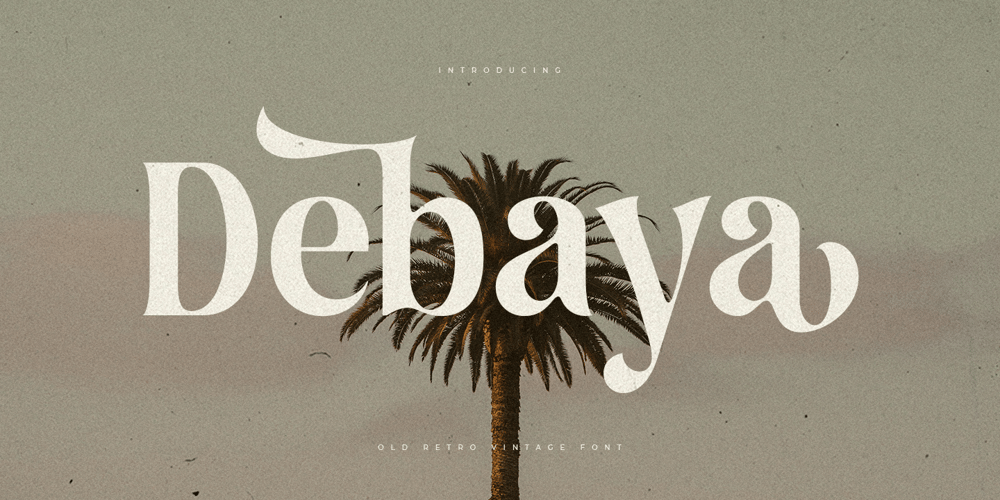
Debaya Font Family was designed by Zamroni Hamzah and published by Sensatype Studio. Debaya contains 1 styles and family package options. Debaya is an Old Retro Vintage FontAn Old Retro Vintage font that special created with Display style for Headline Vintage Retro Project, Unique branding needs, with extra alternates in unique style that ready to add value of your brand.Debay Old Retro Vintage Font ready with: Lowercase and Uppercase characters Numbers and Punctuations Preview as a inspirations that you can do with Montainous font Available for PC and Mac Wish you enjoy our font.